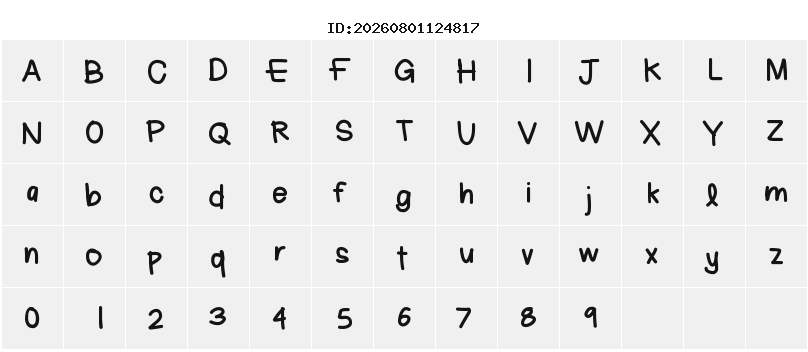
LERA Preview
About LERA.ttf
LERA.ttf is a modern, elegant sans-serif font designed for ultimate readability and visual harmony. Perfect for branding, headlines, web design, and print materials.